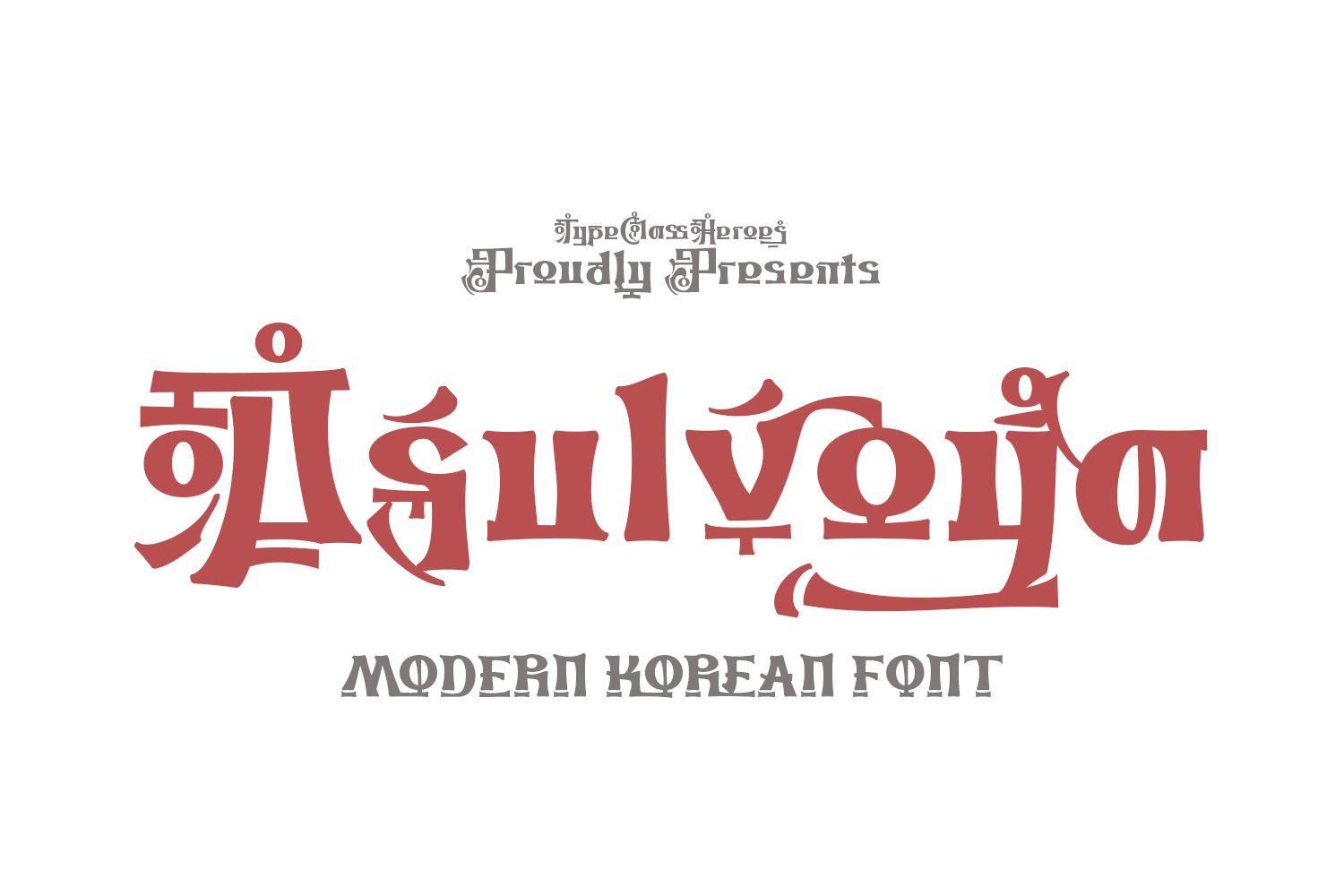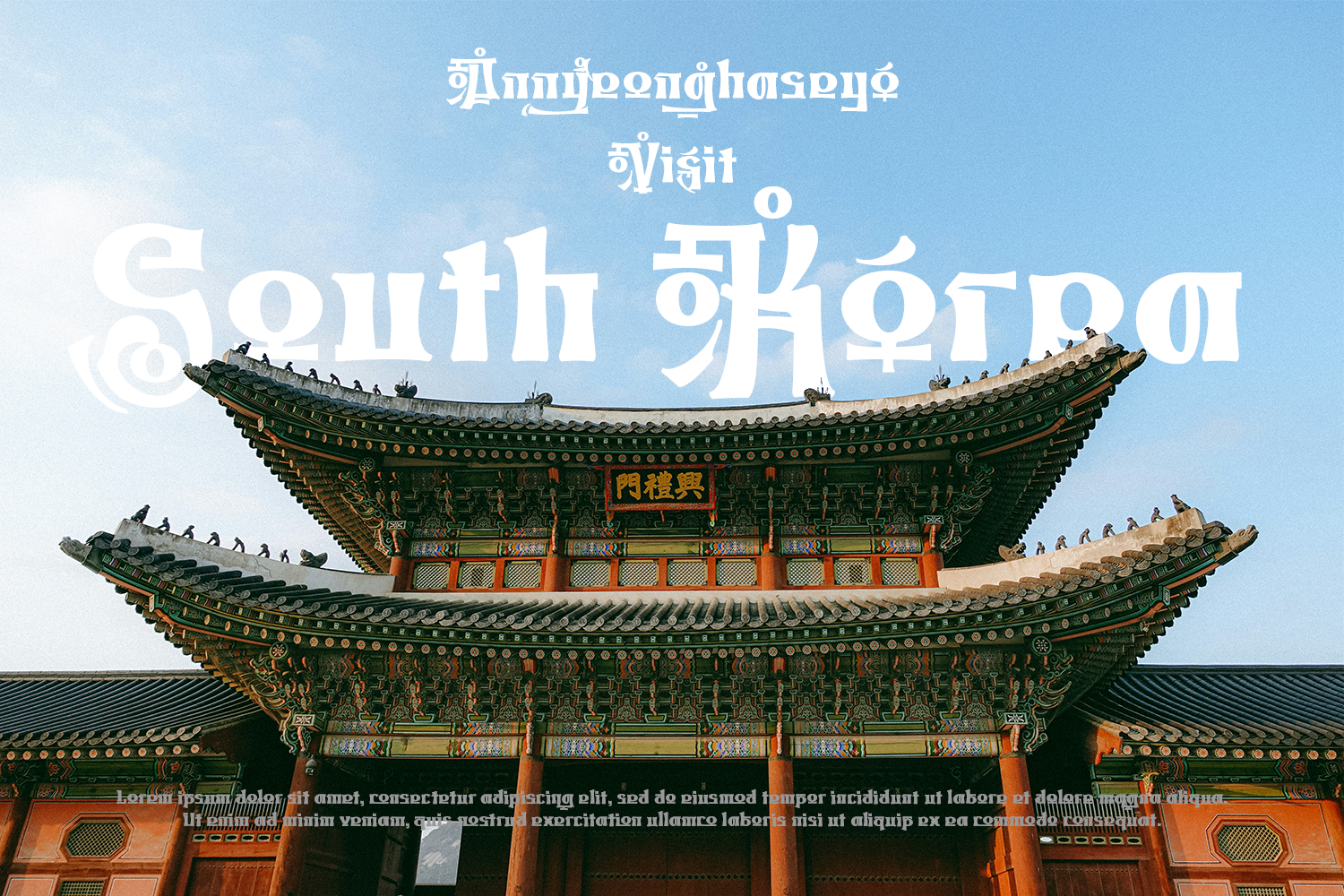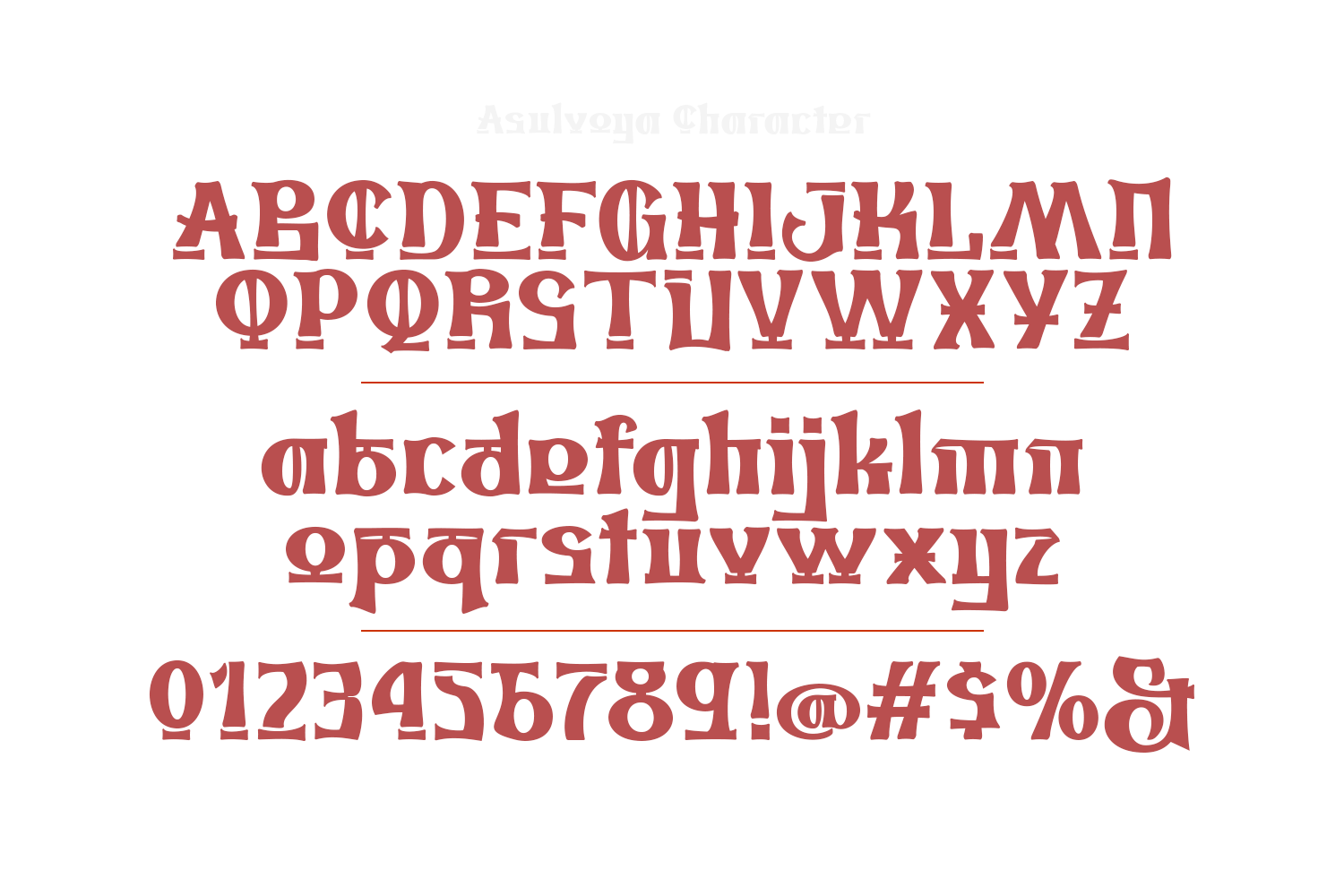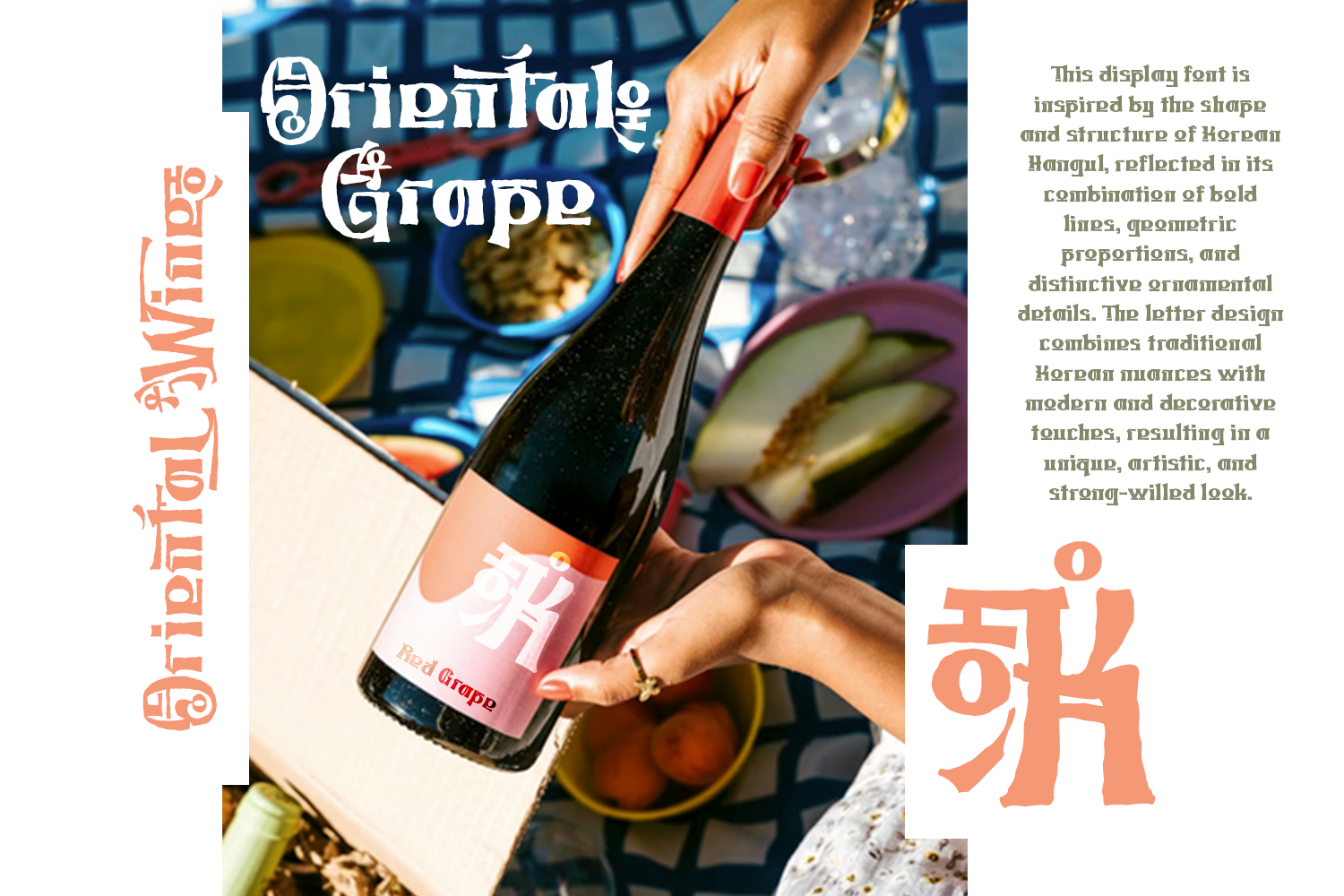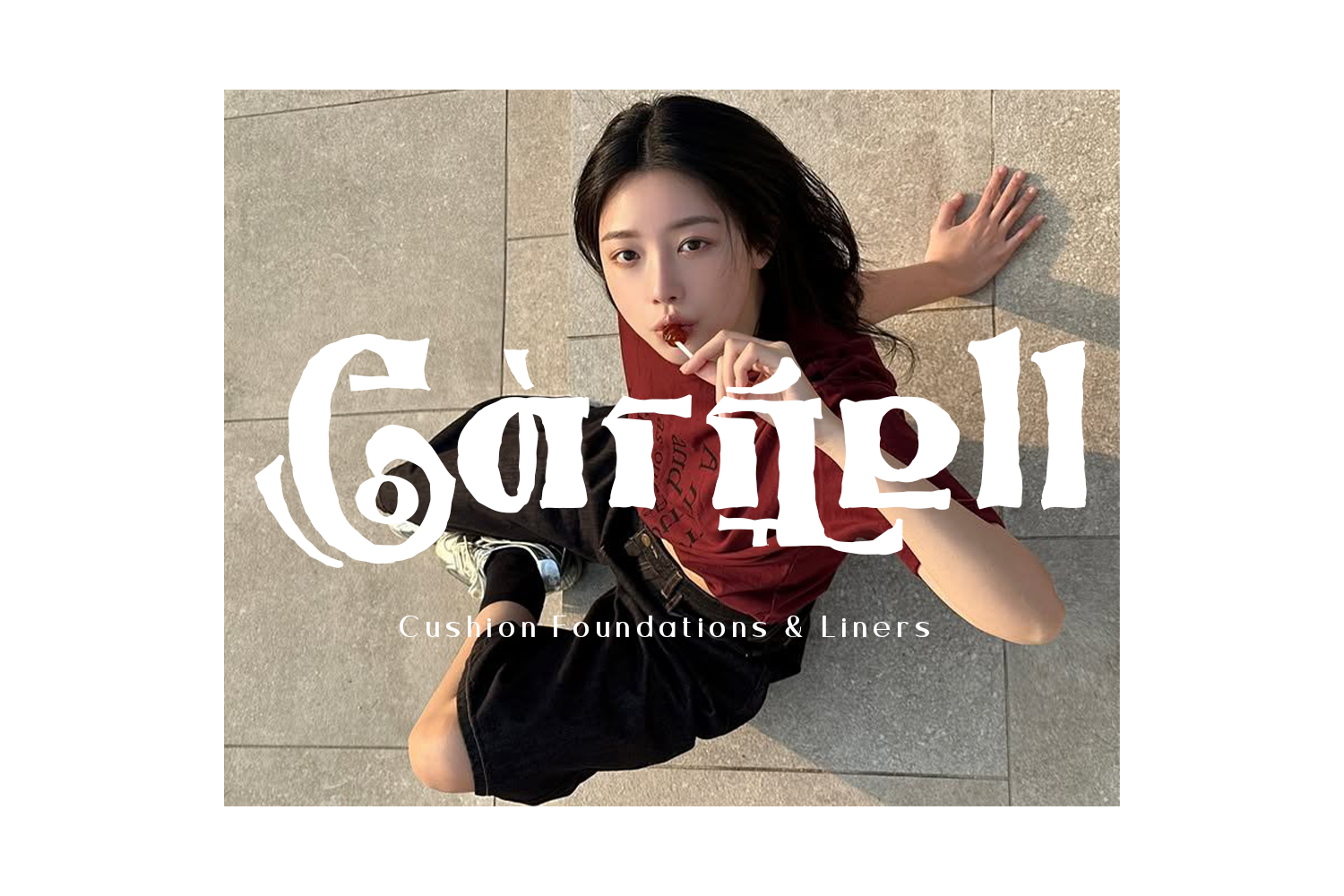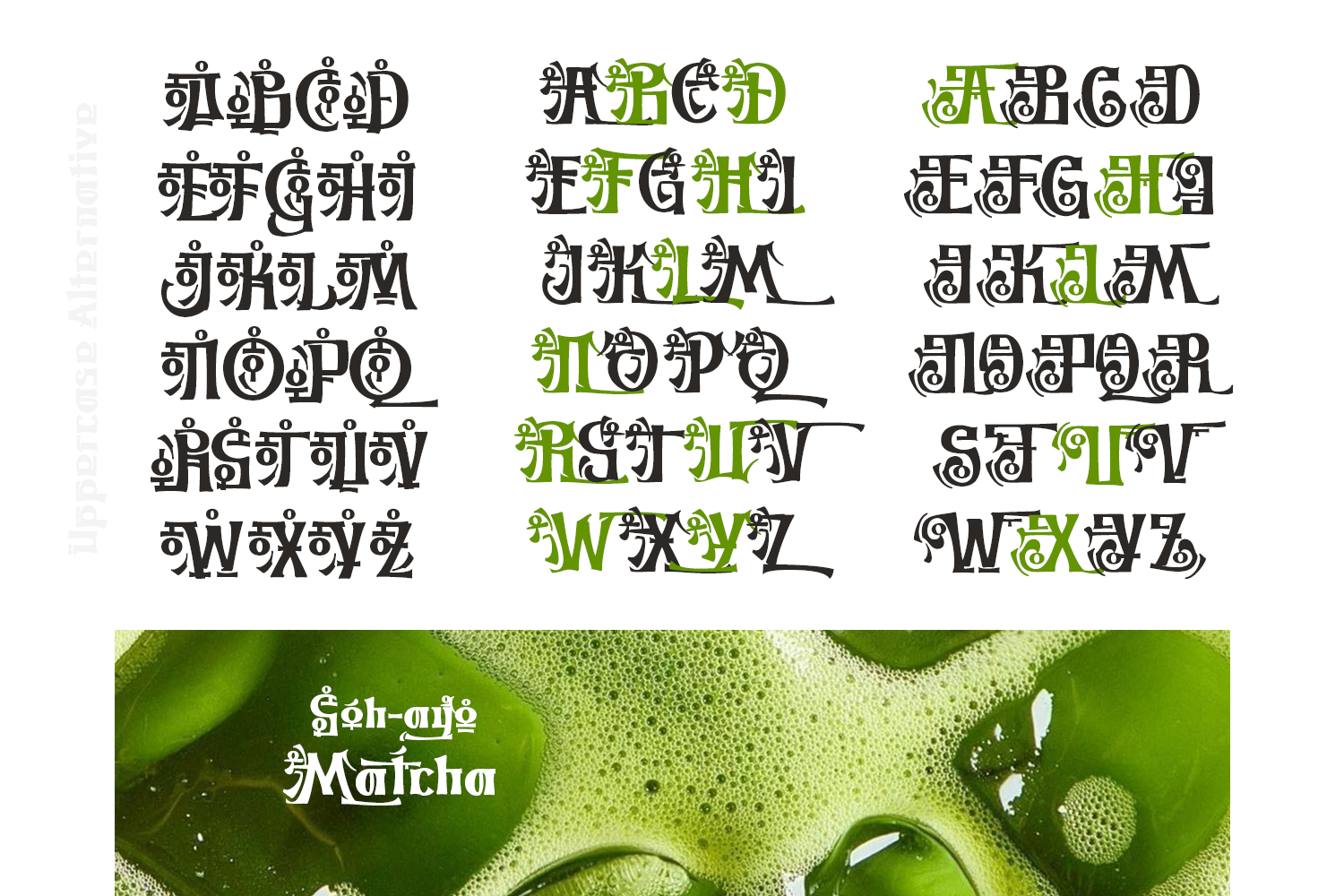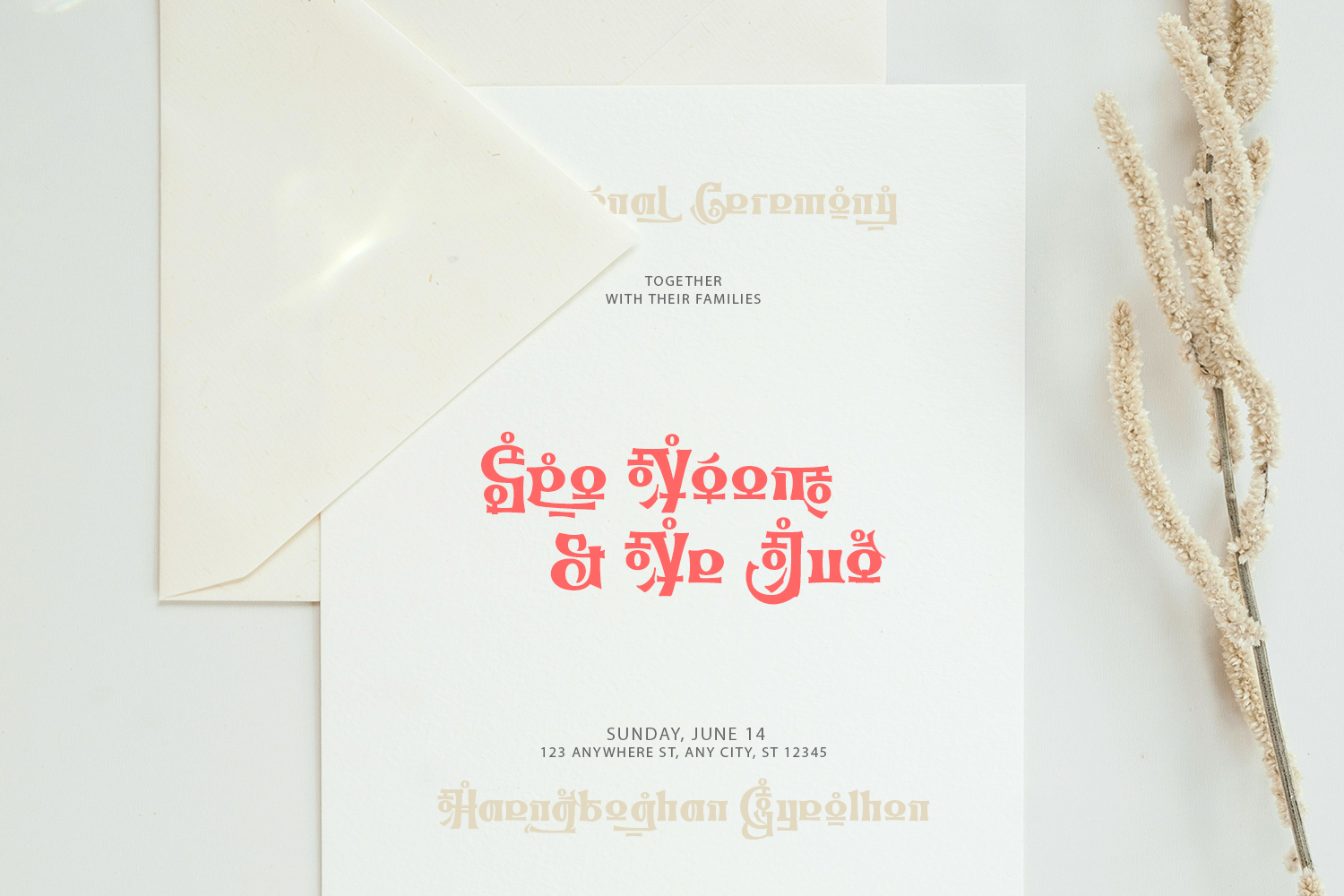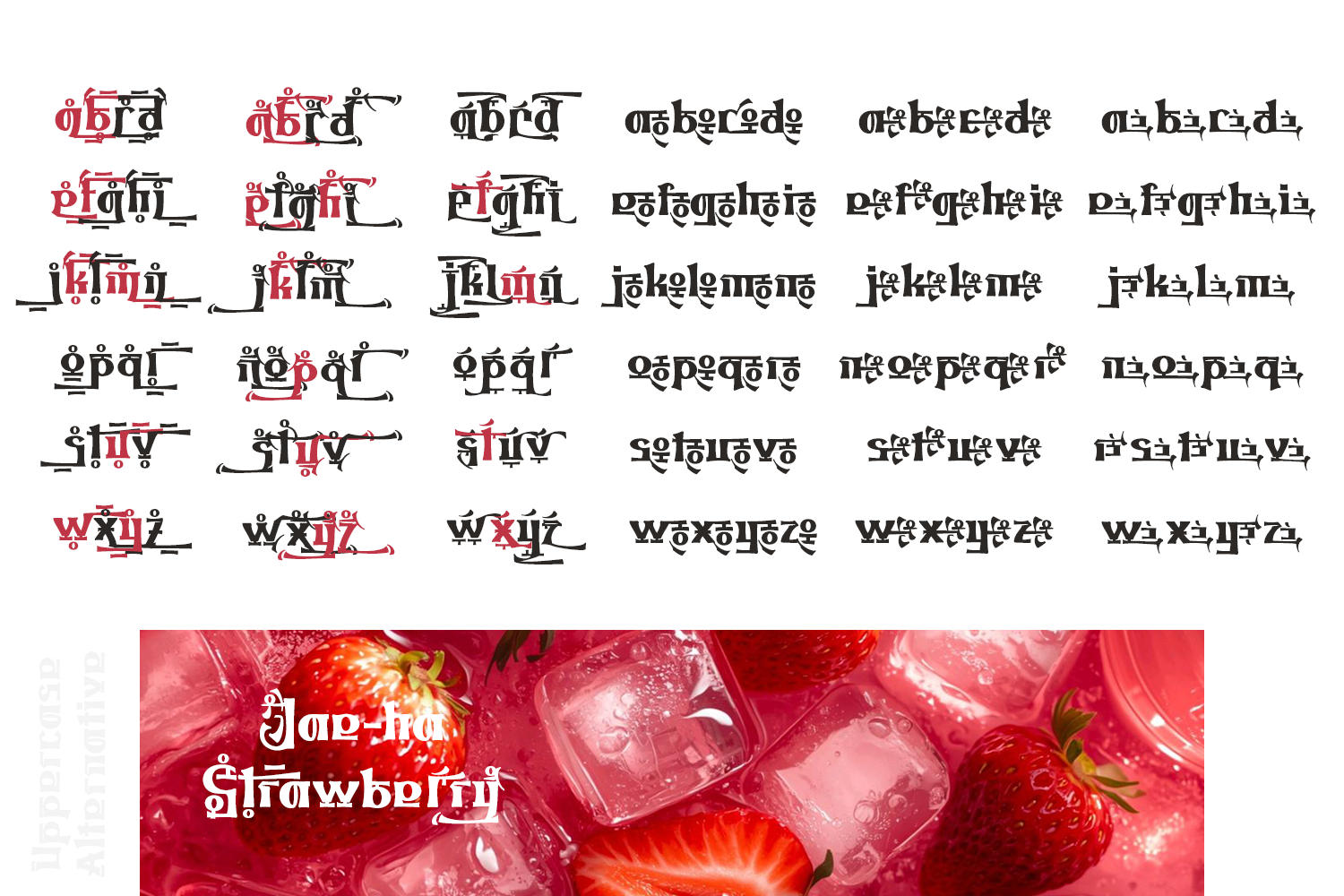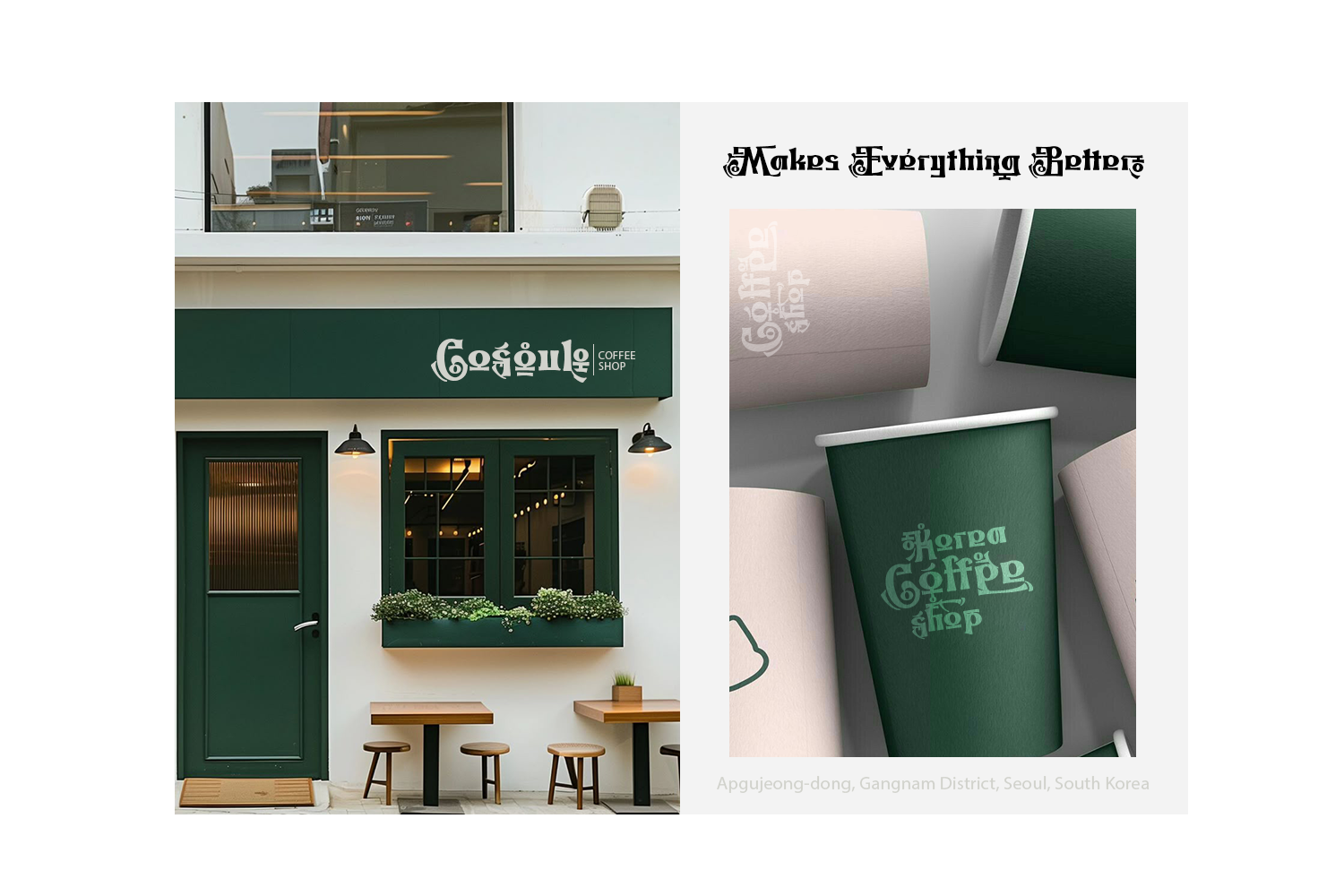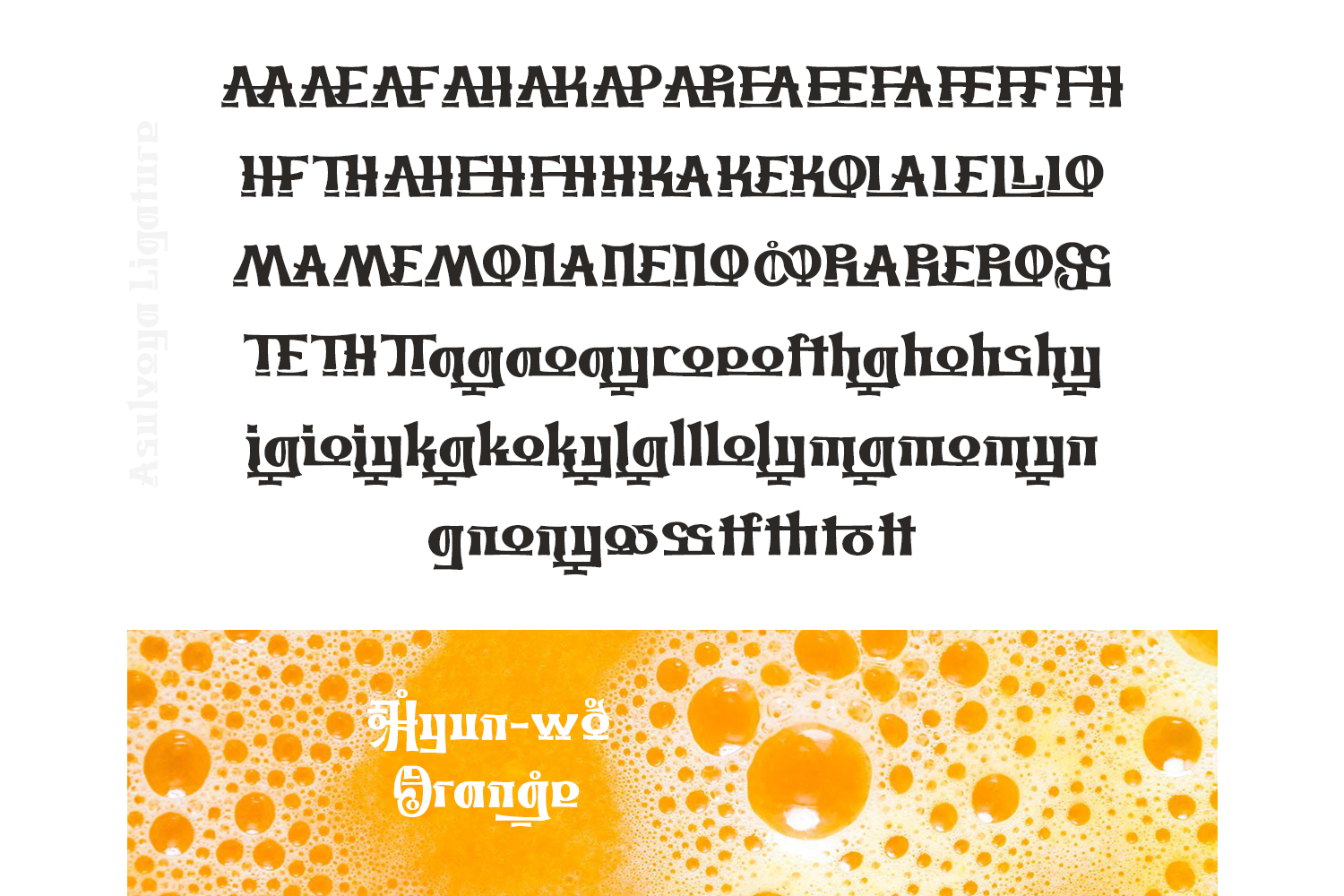
Introducing Asuvolya, this display font is inspired by the shape and structure of Korean Hangul, reflected in its combination of bold lines, geometric proportions, and distinctive ornamental details. The letter design combines traditional Korean nuances with modern and decorative touches, resulting in a unique, artistic, and strong-willed look.
This font is perfect for various design needs, such as branding, posters, logos, album covers, merchandise designs, and social media content, especially for themes that emphasize aesthetics, Asian culture, edgy, or experimental elements. Its striking shape also makes it effective as a display font for titles or headlines, making them more eye-catching and memorable.